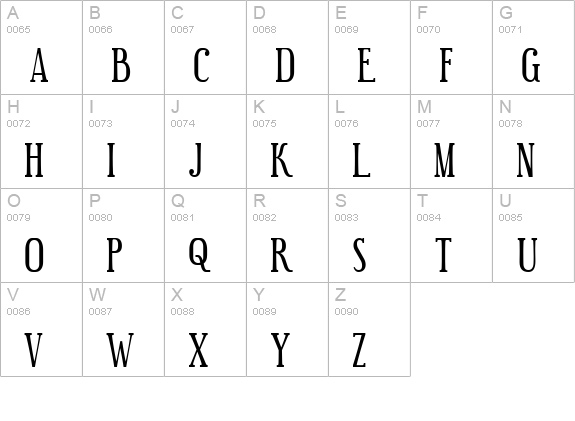
Euphorigenic Font Details
Euphorigenic font is a stylish and versatile typeface that exudes a sense of euphoria and creativity. Its elegant curves and modern look make it perfect for a wide range of design projects, from branding to invitations. This font is free to download at FontsMarket.com, allowing you to easily incorporate its unique charm into your work without any cost. Whether you are designing a poster, logo, or website, Euphorigenic font will surely add a touch of sophistication and flair to your creations. Don't miss out on this opportunity to enhance your designs with this beautiful and free font!